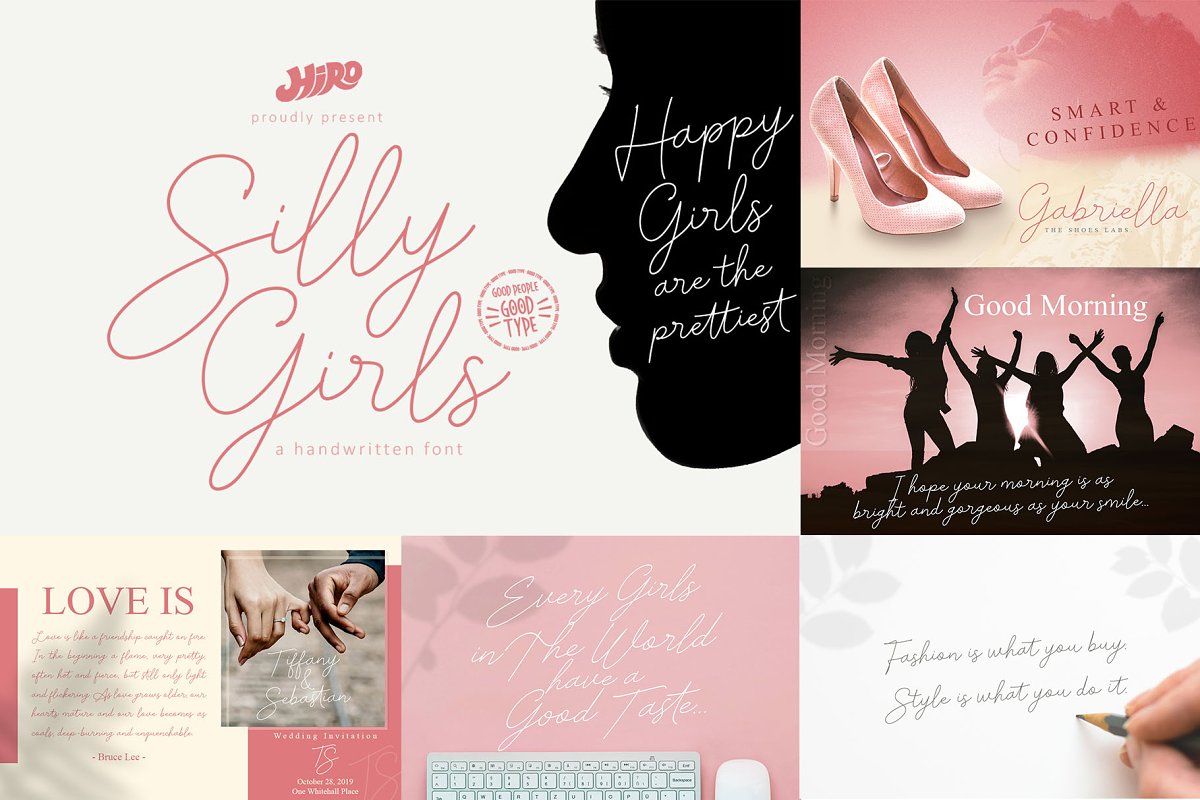
Handwritten Bundle Font Family Free Download
About the Handwritten Bundle Font
UPDATE!! MARCH 2019I have extended this offer and added 5 new fonts!As spring begins, I would like to offer a wonderful selection of my fonts at a HUGE DISCOUNT! I’ve handpicked a unique selection for this special bundle, It does not include ALL of my fonts – just a mix of different styles!This is a LIMITED EDITION bundle, Even if you have purchased a font that is included, this is still an amazing deal!Inside you will find 55 fonts – all handwritten – scripts, displays, doodles